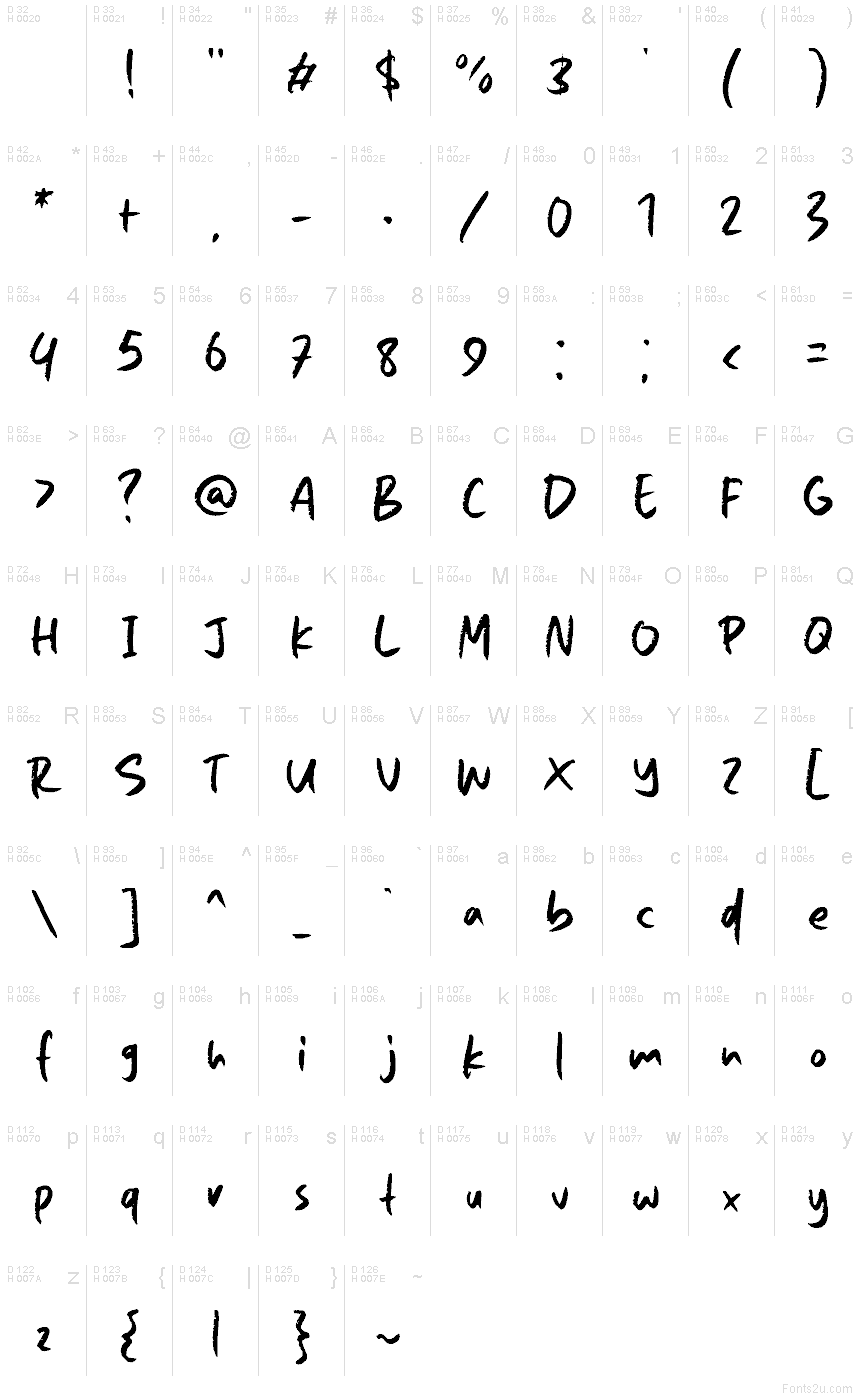
Super Fight
Super Fight font by MJType is a free brush font. It stands out with gritty, dry-brush texture—strokes flare and taper with pressure, leaving inky pools at turns and feathered edges on quick exits. The rhythm feels hand-thrown yet readable, landing that sweet spot between raw energy and clear forms.
Using Super Fight, headlines snap with impact across sports posters, streetwear branding, game covers, event flyers, YouTube thumbnails, and bold packaging. The generous contrast and angled strokes create motion even at rest, so this free font shines at large sizes with tight line spacing. Pair it with a clean grotesk or geometric sans for body copy to let the brushwork take center stage.